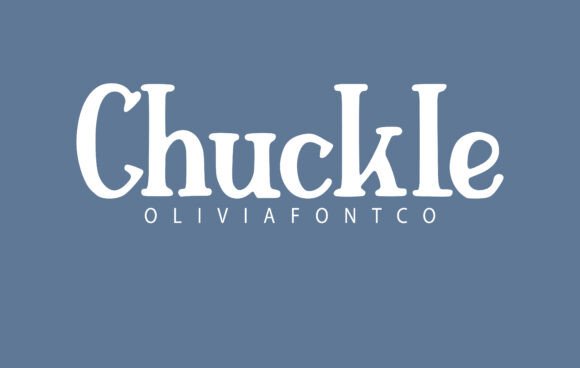
The Chuckle Font: A Romantic, Handwritten Delight for Creatives
I’ll never forget the moment I stumbled upon the Chuckle font while working on a wedding invitation project. My client wanted a romantic, whimsical feel that captured the couple’s playful and adventurous spirits. As I scrolled through font after font, nothing seemed quite right – until I found Chuckle. Its elegant, handwritten curves and authentic feel instantly won me over. I knew right then and there that this font was going to be a game-changer for my design projects.
So, what makes Chuckle font so special? Let’s dive into the details:
- ✨ Legibility and versatility: Chuckle font shines as both a title and body text font, making it perfect for a wide range of design projects.
- ✅ Romantic and whimsical: Its handwritten curves and authentic feel evoke a sense of nostalgia and playfulness.
- ✨ High-quality design: Expertly crafted to ensure a smooth reading experience, Chuckle font is a true favorite among designers.
Of course, no font is perfect, and Chuckle has a few minor quirks:
- 🤔 Limited availability of stylistic alternates: While Chuckle font has some beautiful OpenType features, it could benefit from more stylistic alternates to further customize your designs.
- ⚠️ Occasional kerning issues: As with any font, some users may experience kerning issues, particularly when using all-caps or large font sizes.
The Story Behind Chuckle Font
Chuckle font was designed with love and care by a talented typographer who wanted to create a font that would bring joy and playfulness to designers and readers alike. Inspired by classic handwritten scripts and modern digital fonts, Chuckle font is a unique blend of traditional and contemporary styles.
Q: What makes Chuckle font suitable for wedding invitations and cards?
A: Chuckle font’s romantic, whimsical feel and elegant handwritten curves make it perfect for wedding invitations, cards, and other special occasions.
Q: Is Chuckle font available in different languages?